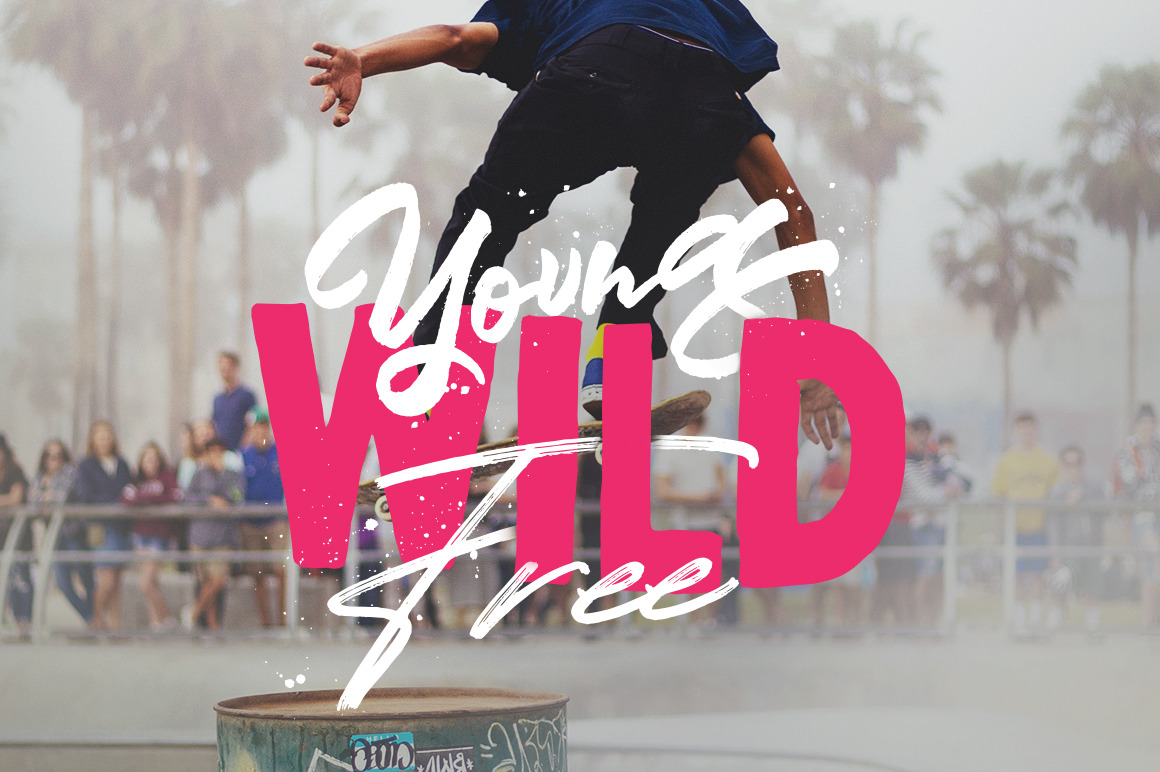
Mind Blowing 3 Brush Font Set 40%OFF
Proudly presents latest product Mind Blowing Font Set with 2 different style ‘script and sans’. These three lovely fonts combination would be perfect to combine in your design. with Handmade Brush Texture style. The fonts are great for product logo,wedding card logo, clothing brand logo,Vintage design and much more.
- Stylistic Set